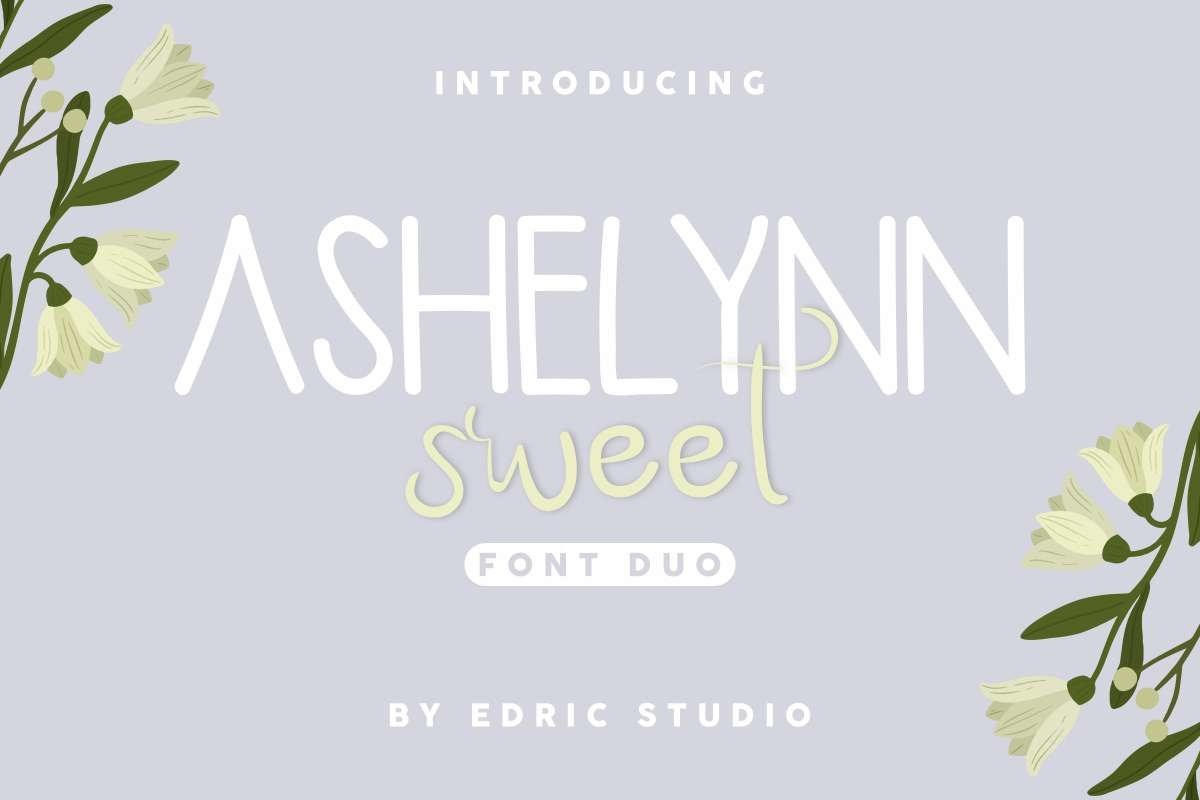
Ashelynn sweet
Please welcome everybody!February 2020, we are introducing you : Ashelynn sweet Font Duo !!It is indeed a DUO FONT,,there are two different style on it : Script and Sans Serif. Ashelynn sweet Font Duo was born in 2019 from our lovely studio.Ashelynn sweet Font Duo is a modern decorative font duo with handwriting style sans serif and script font type. The font will be perfect for branding, logo, stationery, business card, signage, flyer, brochure etc. There are many industries that is suitable for this font : construction, real estate, services, law firm, game, apps, technology, travel, hotel etcHere’s what you’ll get on the package: